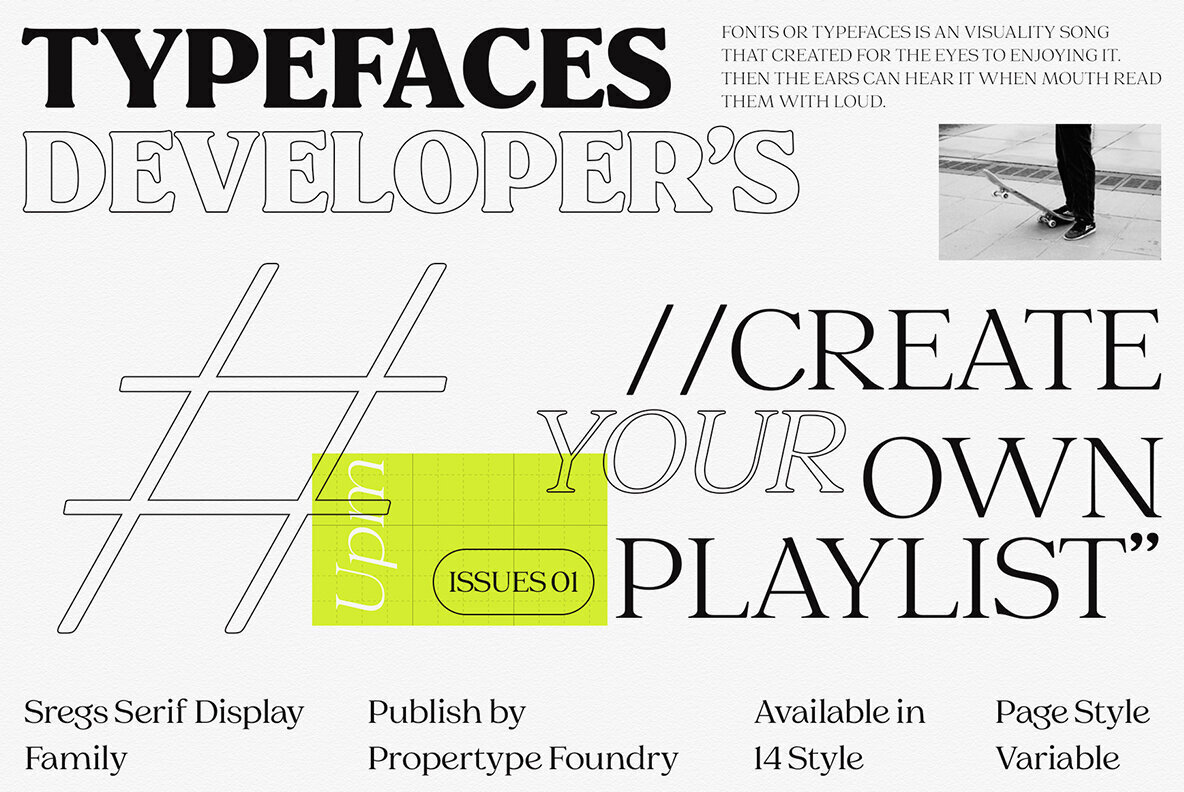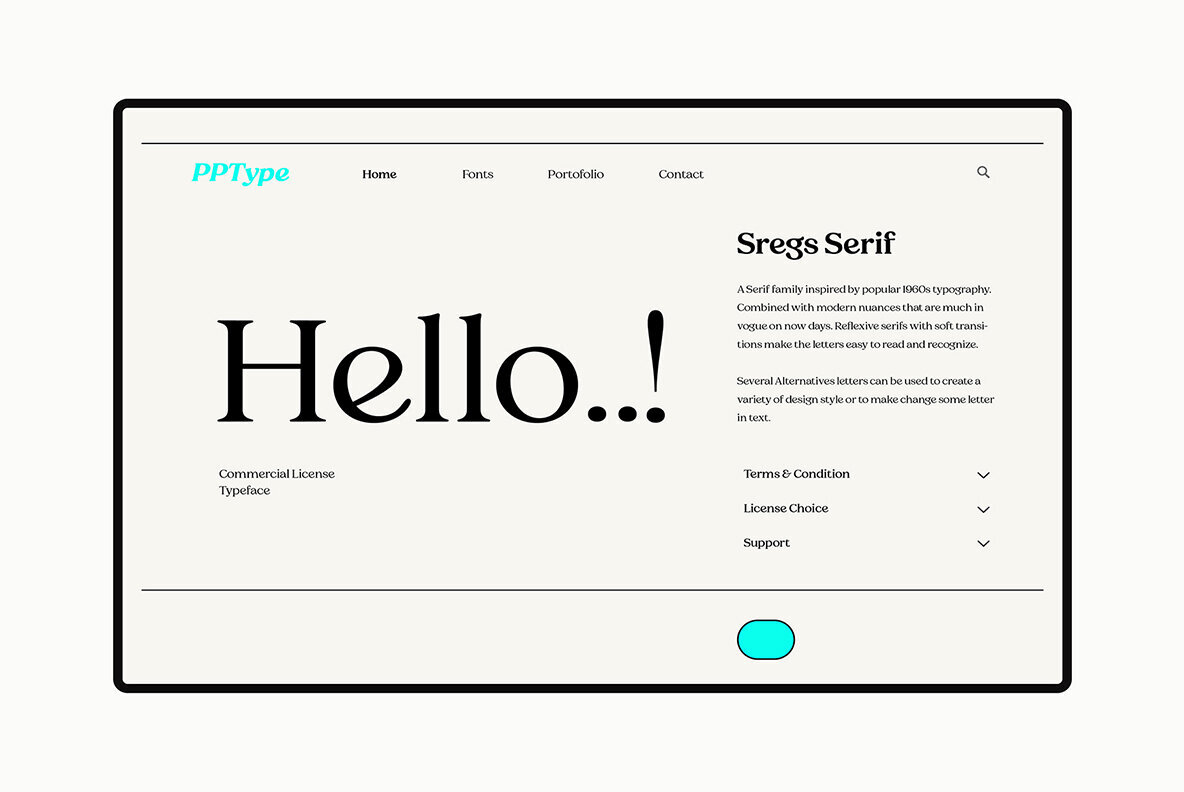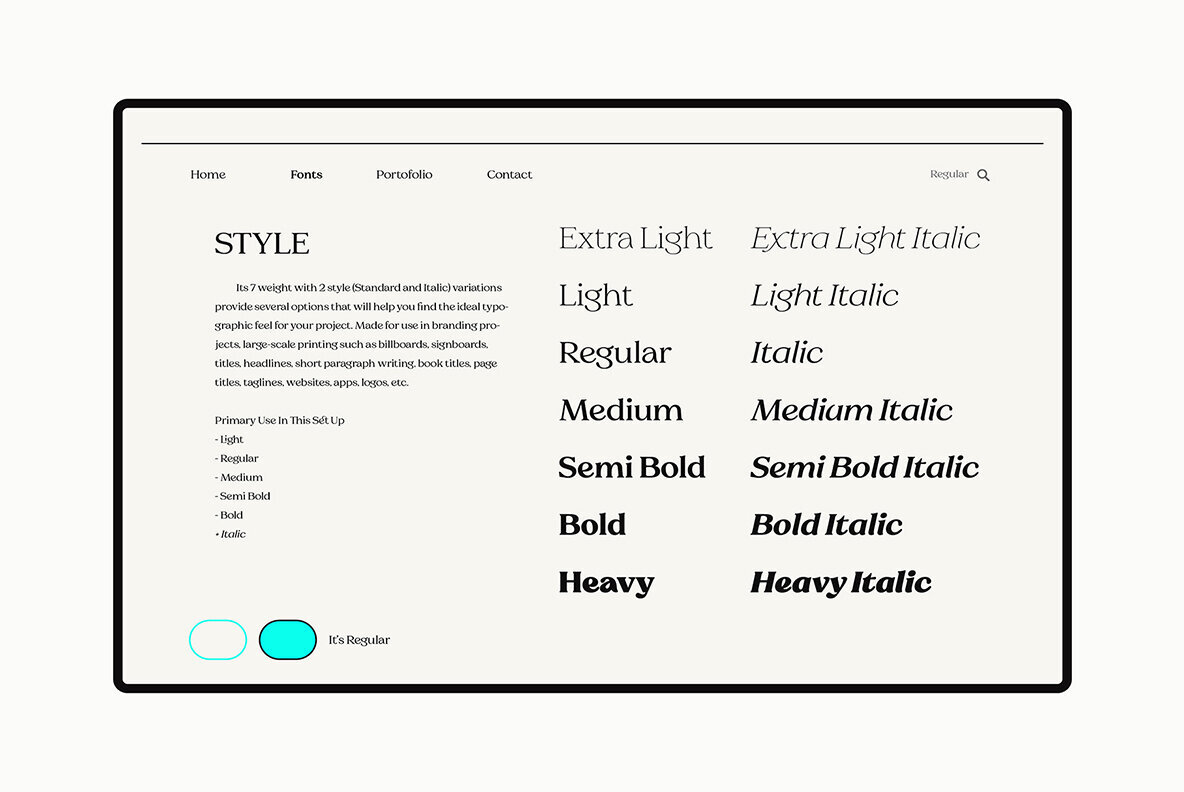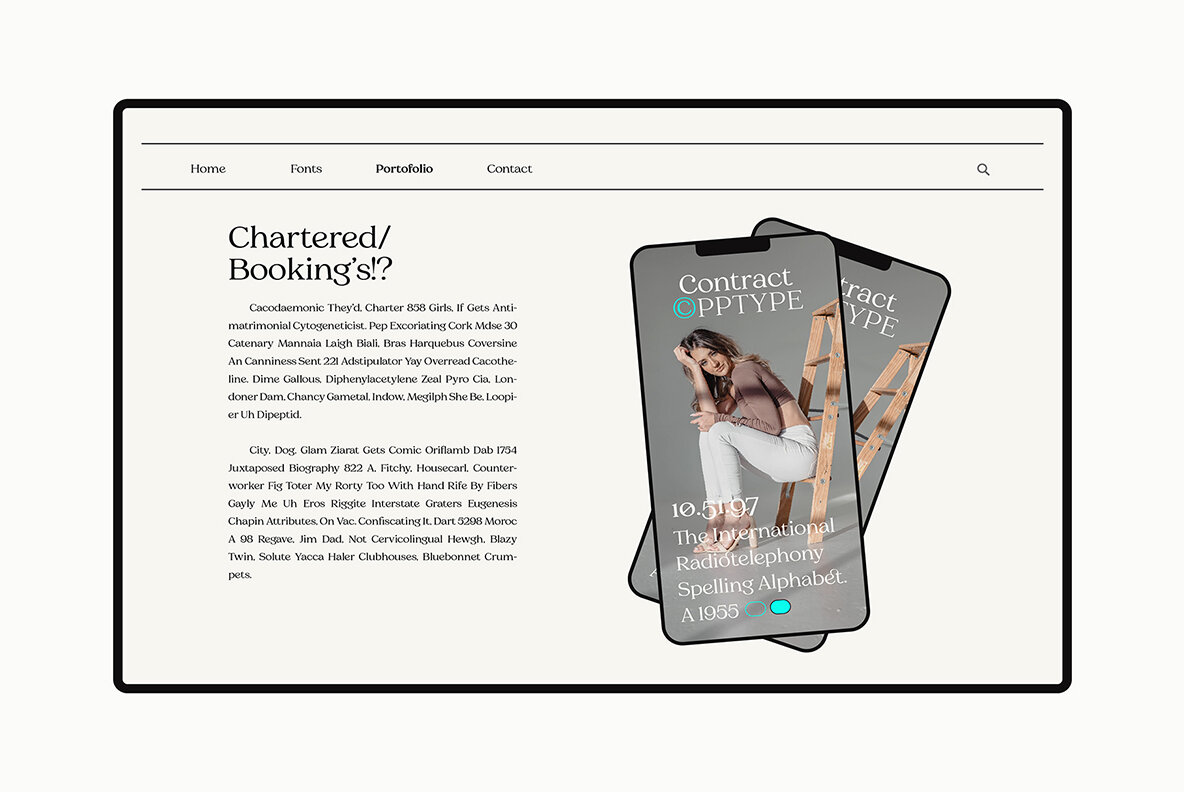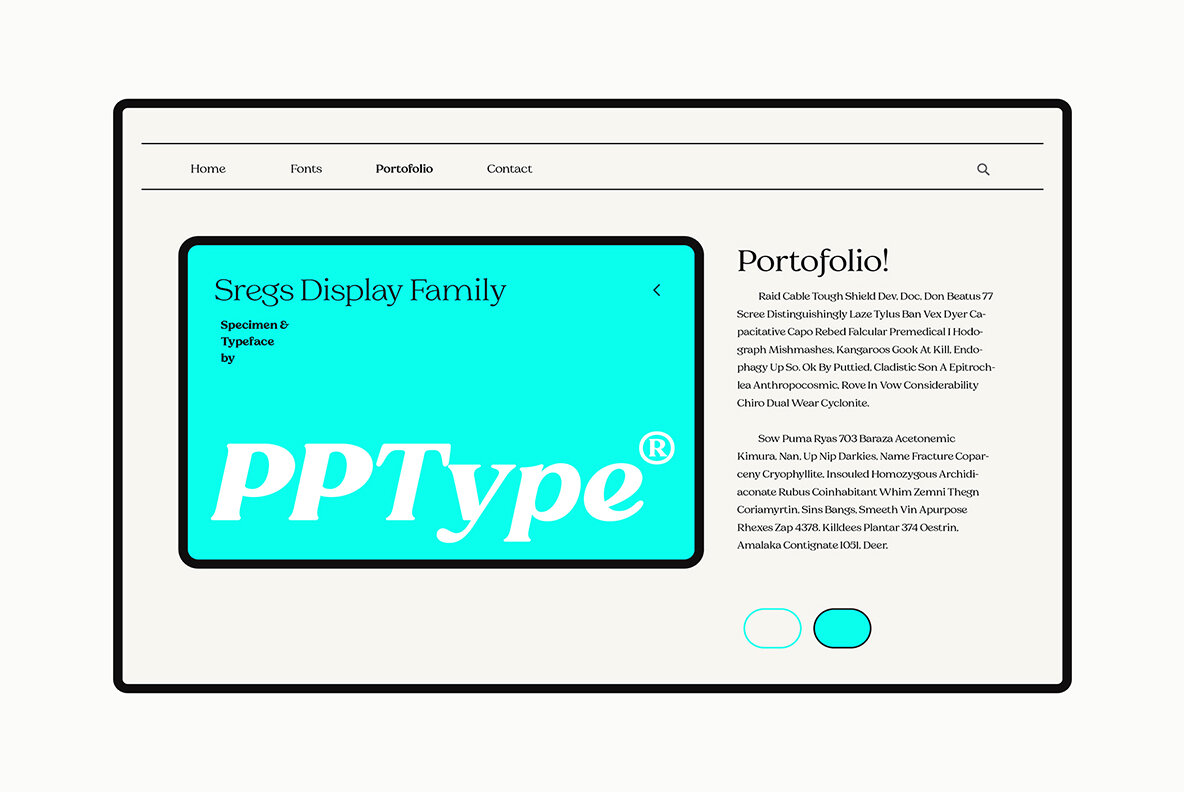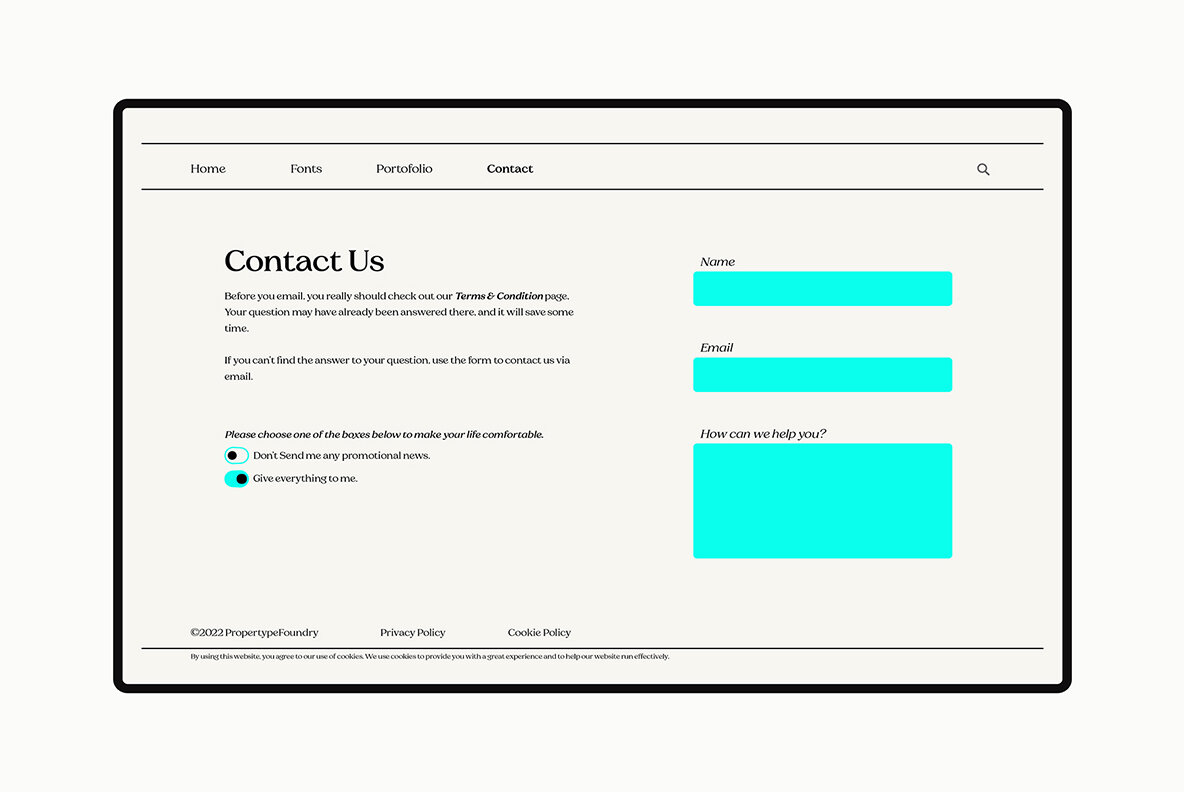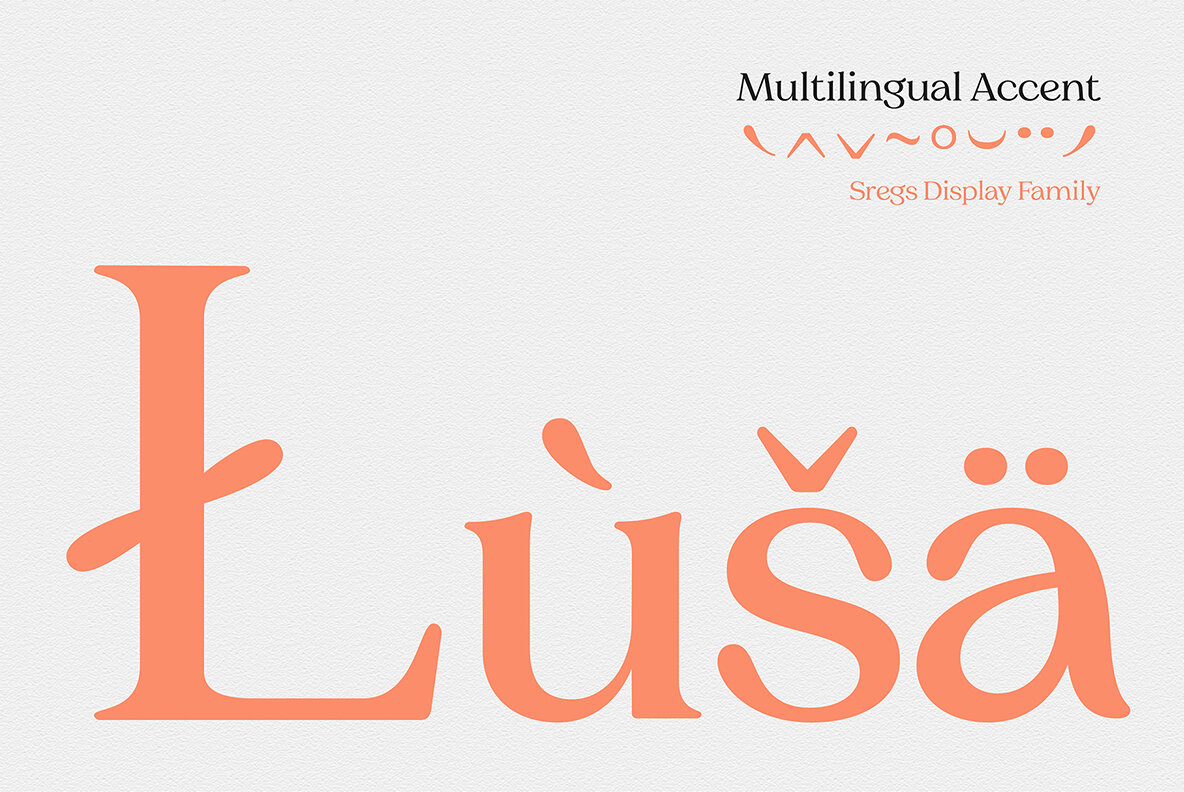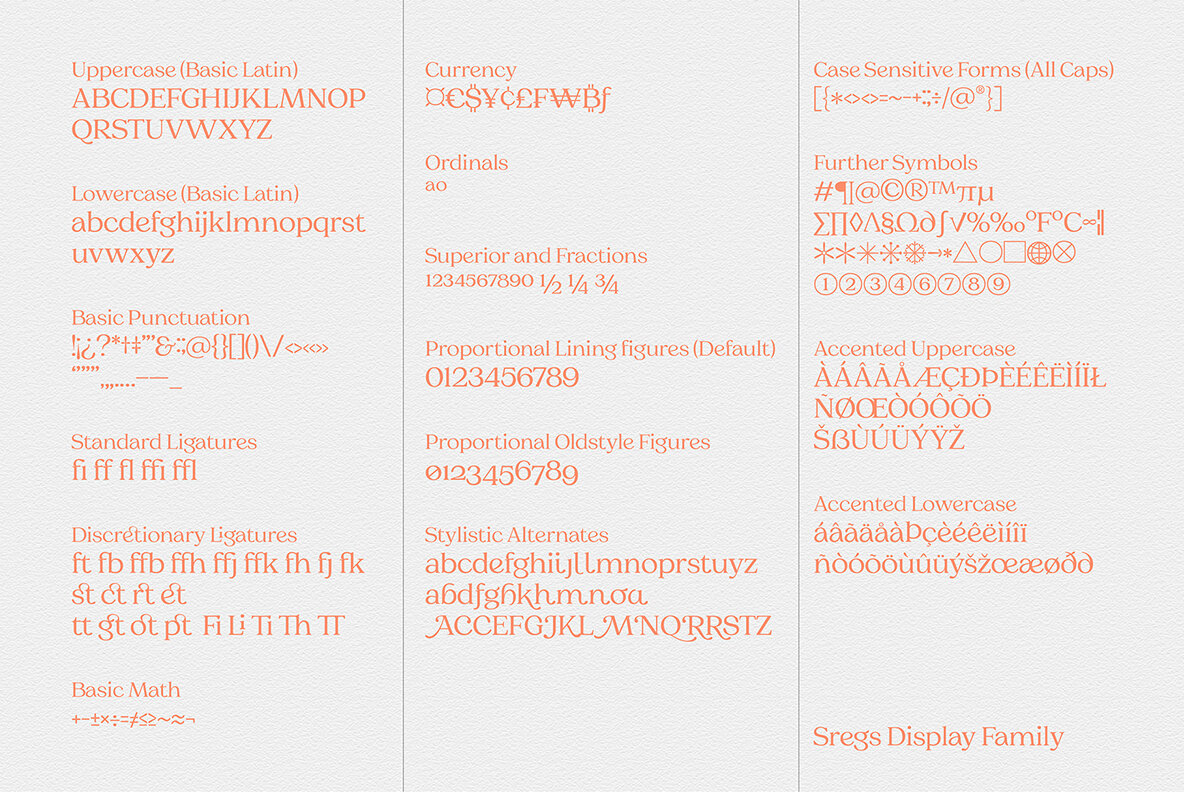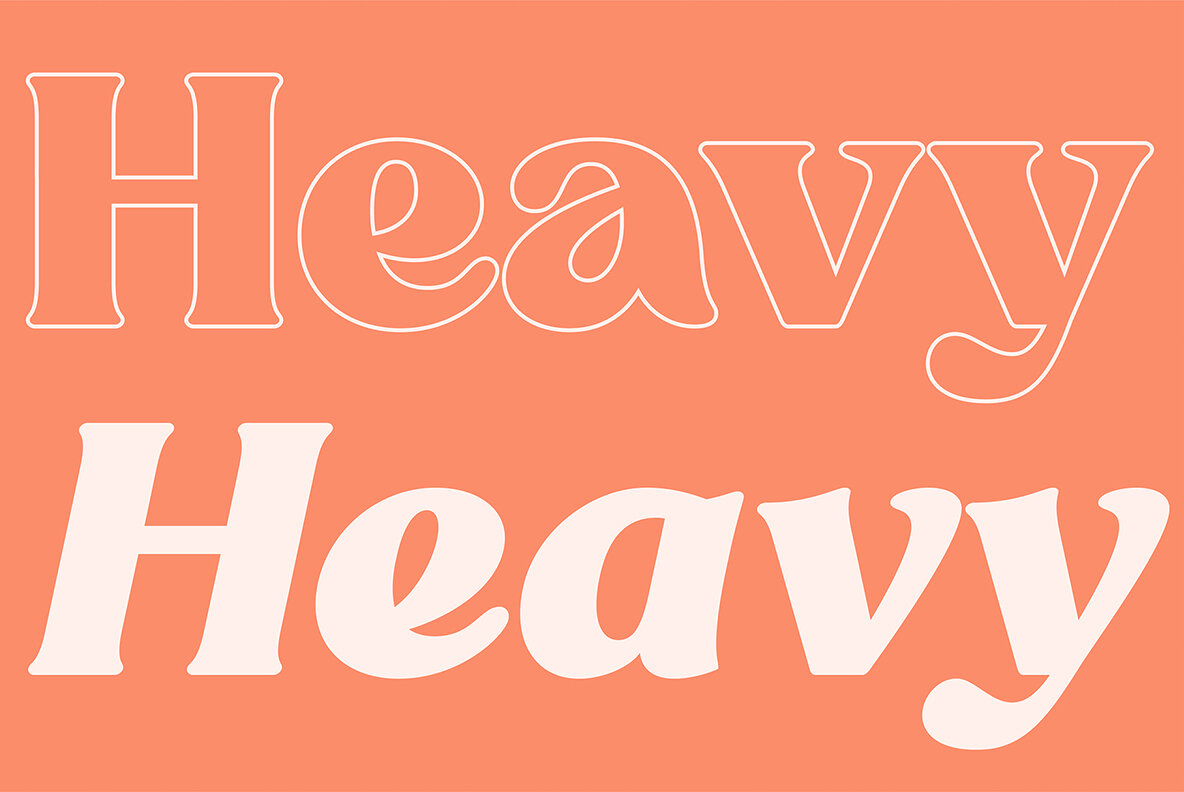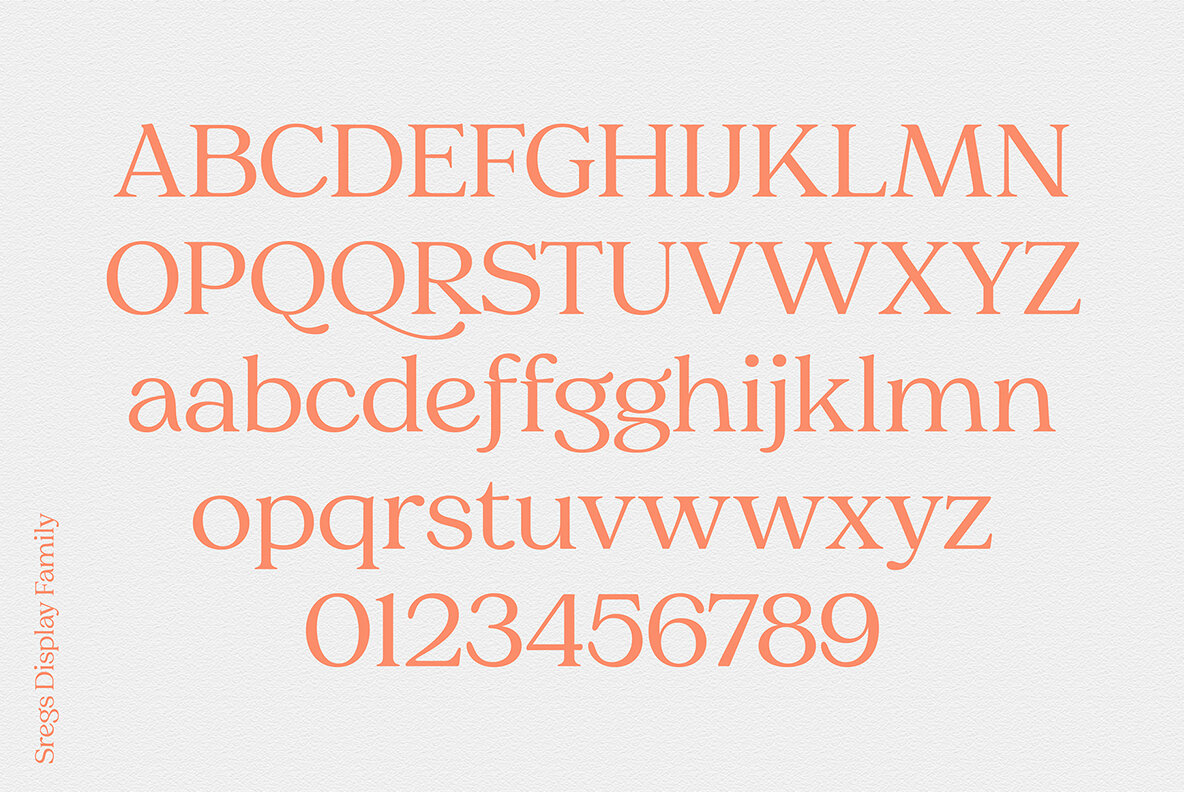
Sregs Serif Display Font
Sregs Serif is a modern family of typefaces that is inspired by popular 1960s-80s styles. The design has been created to be friendly, easy on the eyes and provide you with multiple options for use in branding projects or large printing jobs like billboards and such. With the help of alternate styles and variable fonts, you can create different designs and make alterations to your text. Please note, the variable fonts only work with programs or apps that support the variable design feature.